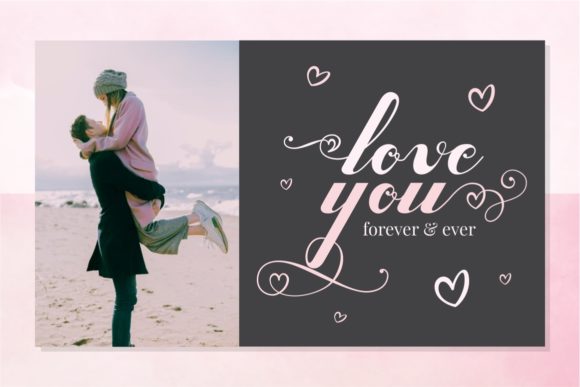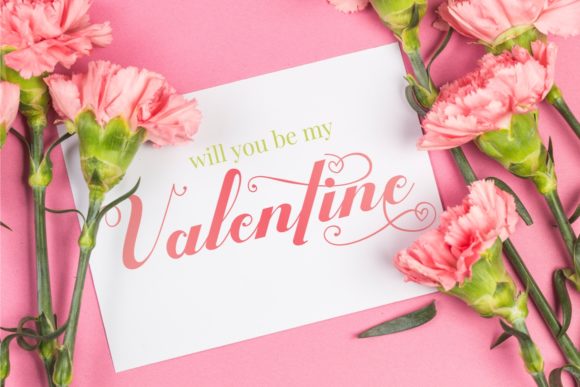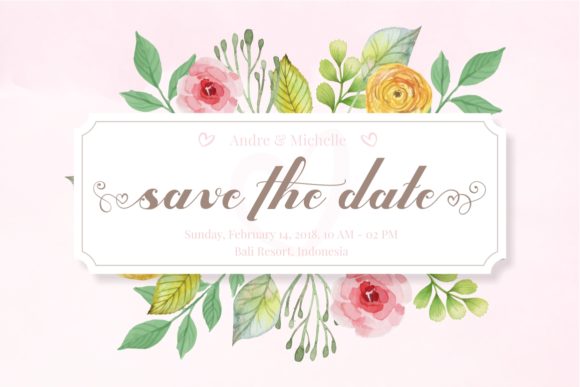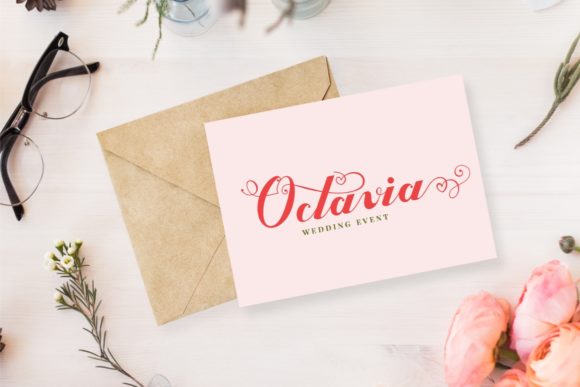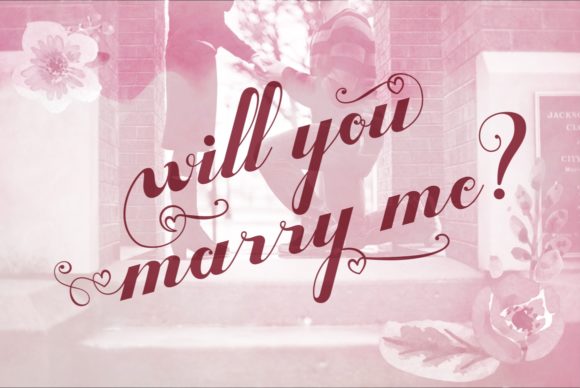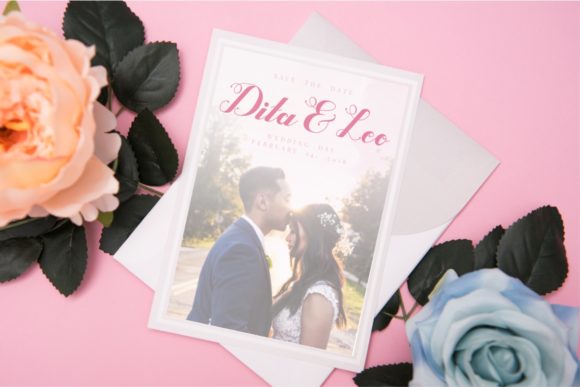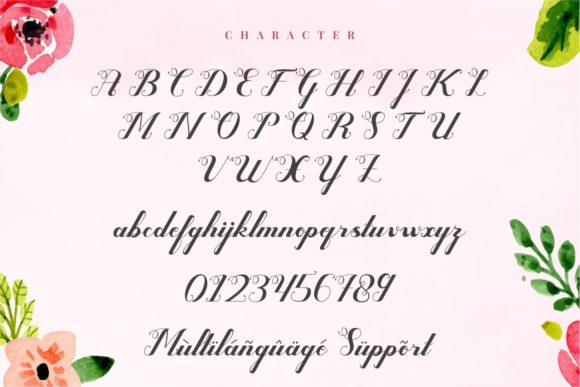
Valentijn Font
About Valentijn Font
The Valentijn is a romantic and royal script font. It has lovely swirly letters with heart elements which will add an unique touch to your designs.
It can be used for covers, poster, logos, quotes, product packaging, headers, merchandise, social media & greeting cards and much more!